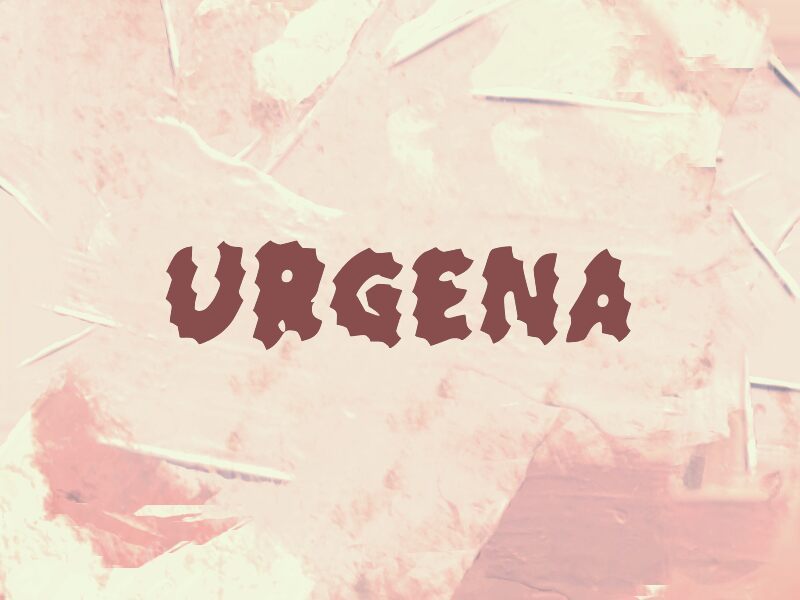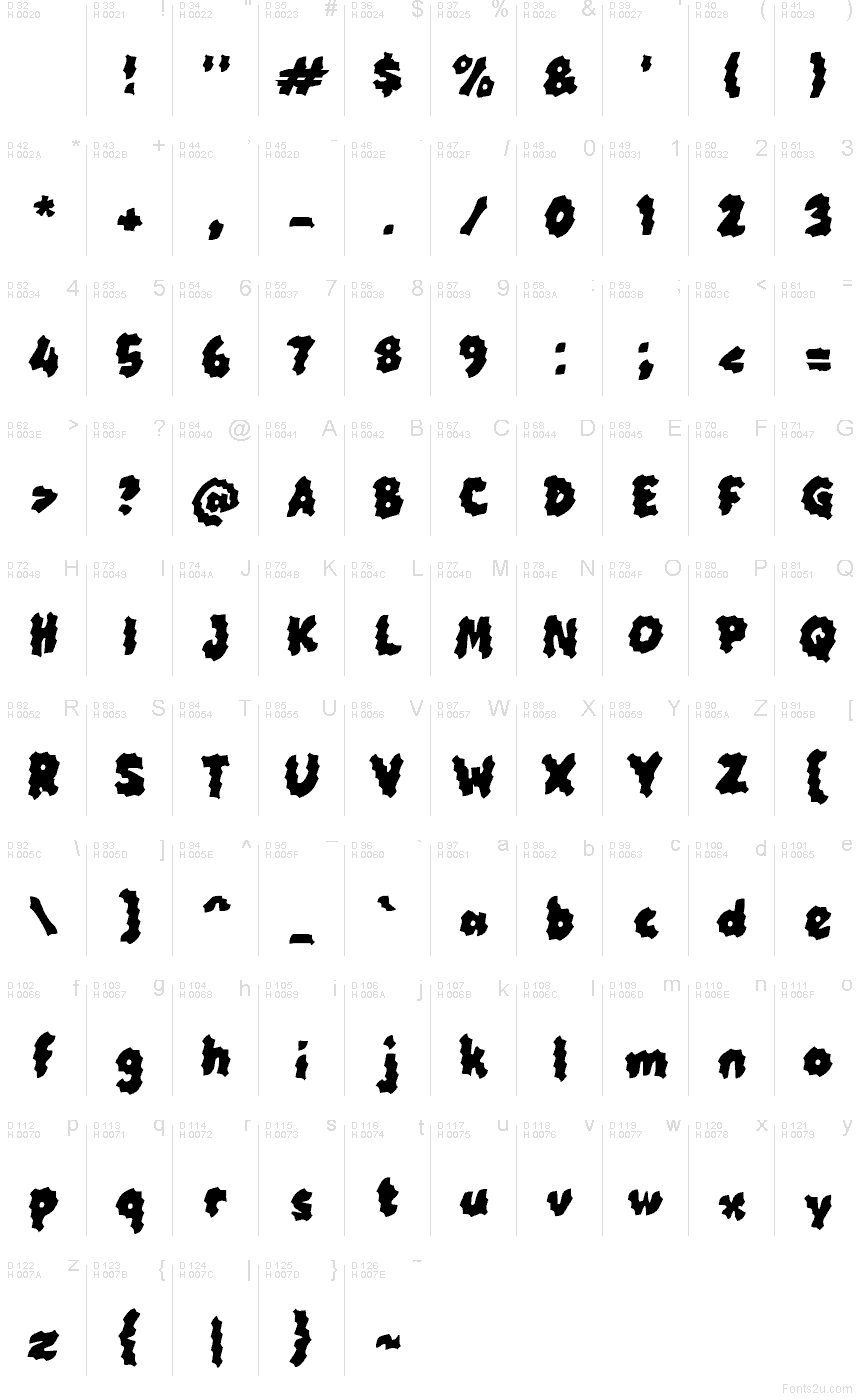
Urgena by Wep is a free distorted horror-display font with letters that look hacked from rough paper or bitten out of solid shapes. The caps lean on chunky silhouettes, deep jagged cuts, and uneven inner openings, giving the whole font a feral, poster-made energy that feels closer to punk flyers and monster titles than to clean digital display work.
It fits music posters, Halloween event graphics, underground zines, game title cards, and cover lines where a raw cutout texture does the heavy lifting. As a free font, Urgena also makes sense for short logos, monograms, and drop caps, because the torn edges keep even a few letters looking loud and strange.